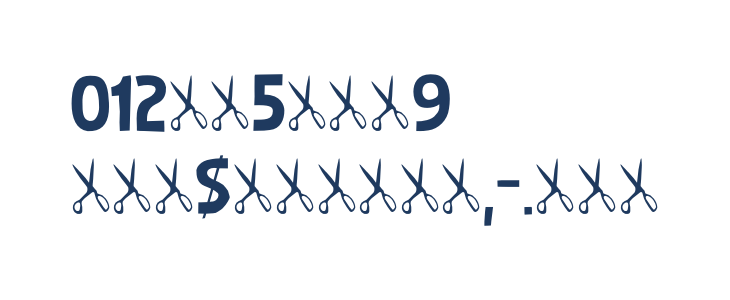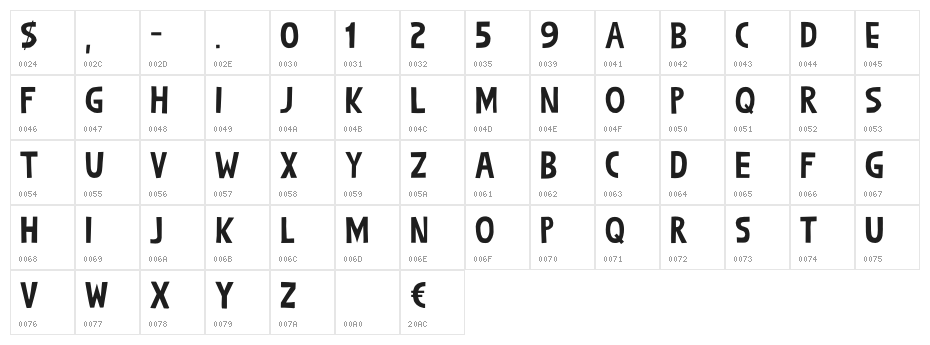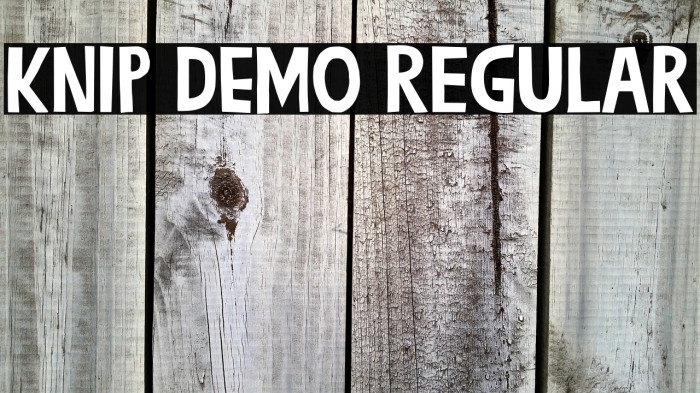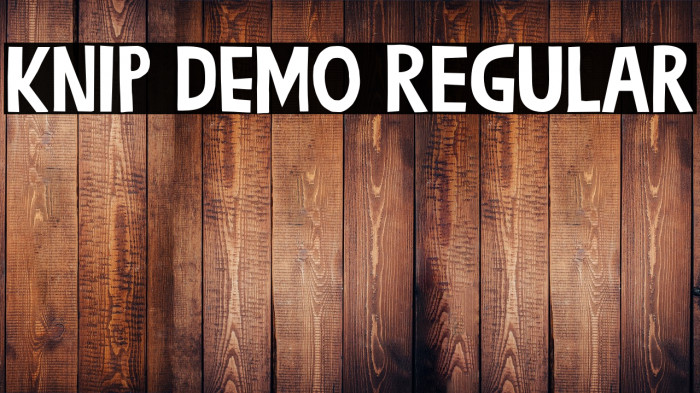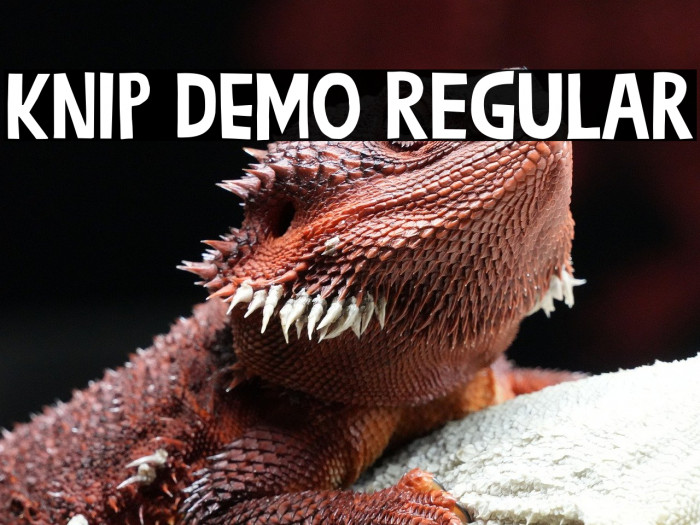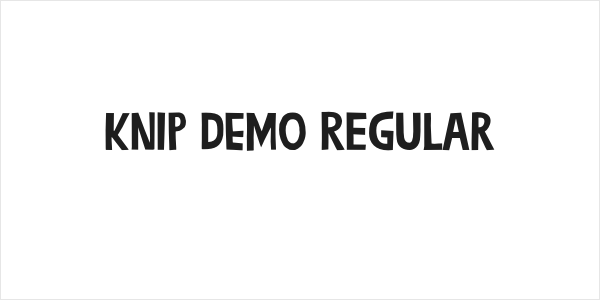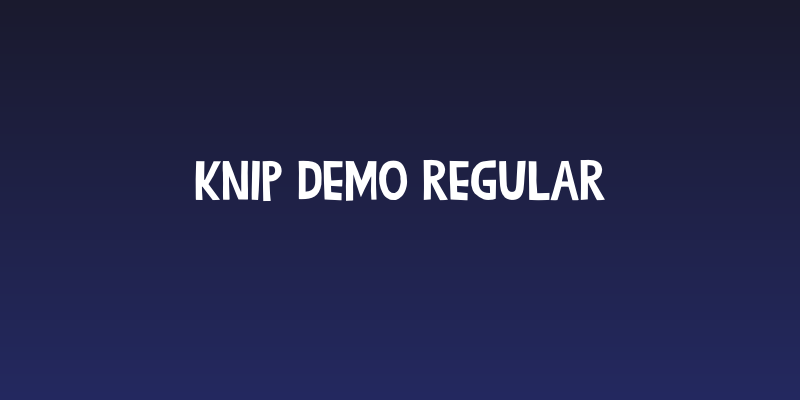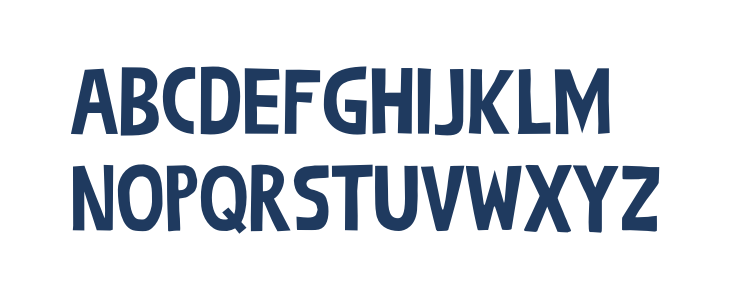
Knip DEMO Regular Font
Knip DEMO Regular Description
This font features a playful and quirky design, characterized by its bold and slightly irregular letterforms. The uppercase letters are prominent and eye-catching, with a hand-drawn aesthetic that adds a unique charm. The numbers and special characters maintain this whimsical style, with the inclusion of scissor motifs adding a distinctive touch. The overall appearance is both fun and approachable, making it suitable for creative and informal projects.
| Proposed Projects | Ideal for children's books, craft projects, playful branding, and creative posters. |